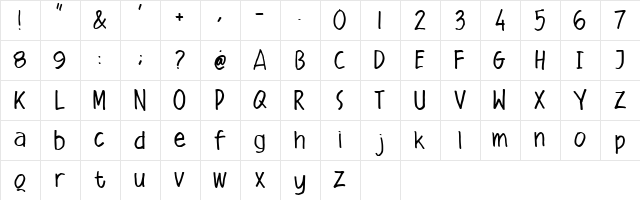
Malique Regular
Design Context for Malique Typeface
Malique is a composed and adaptable typeface that performs quietly and consistently across a wide range of design contexts.